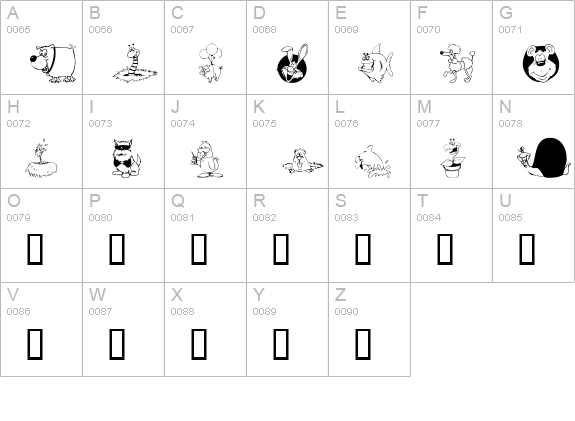
KR All Smiles Font Details
Introducing KR All Smiles font, a whimsical and charming typeface that exudes joy and positivity in every character. This delightful font is perfect for adding a touch of playfulness to your designs, whether it be for greeting cards, invitations, posters, or social media graphics. With its hand-drawn appearance and friendly appeal, KR All Smiles font is sure to bring a smile to anyone who sees it. The rounded edges and flowing lines give this font a soft and approachable feel, making it suitable for a wide range of creative projects. Best of all, KR All Smiles font is available for free download at FontsMarket.com. So go ahead and spread some happiness with this delightful typeface today!